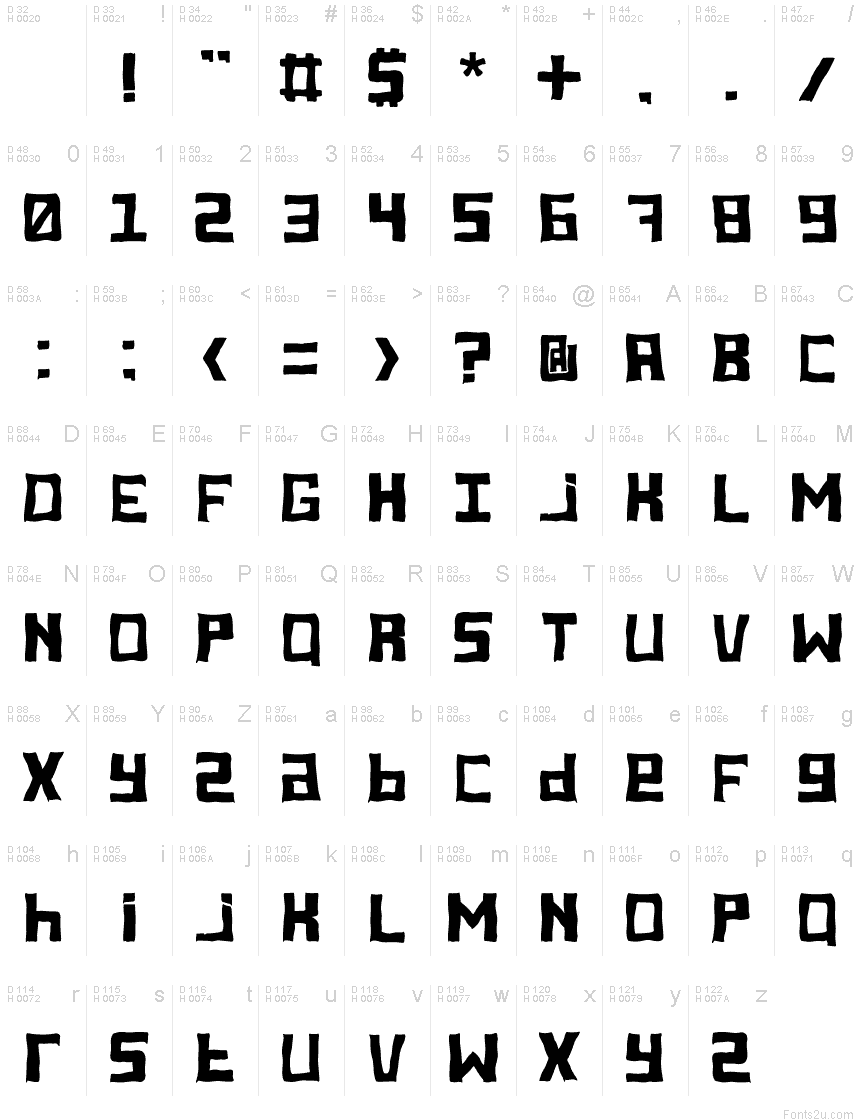
Ghoul
Ghoul font by Jordie Van Rijn is a free eroded display typeface that oozes horror-movie energy. Thick, inky strokes wobble like something hand-painted on a creaking carnival sign, while the rough, eaten-away edges give each word a decayed, underground feel. The letters stand tall and irregular, so your titles look like they’re clawing their way out of the page.
Using Ghoul, you can give instant creep-factor to Halloween posters, escape-room branding, haunted house signage, horror zines, spooky podcast covers, and eerie social graphics. This free font shines at large sizes, where the grungy texture really shows; pair it with a clean, neutral sans serif in small text to keep everything readable while Ghoul does the atmospheric heavy lifting.